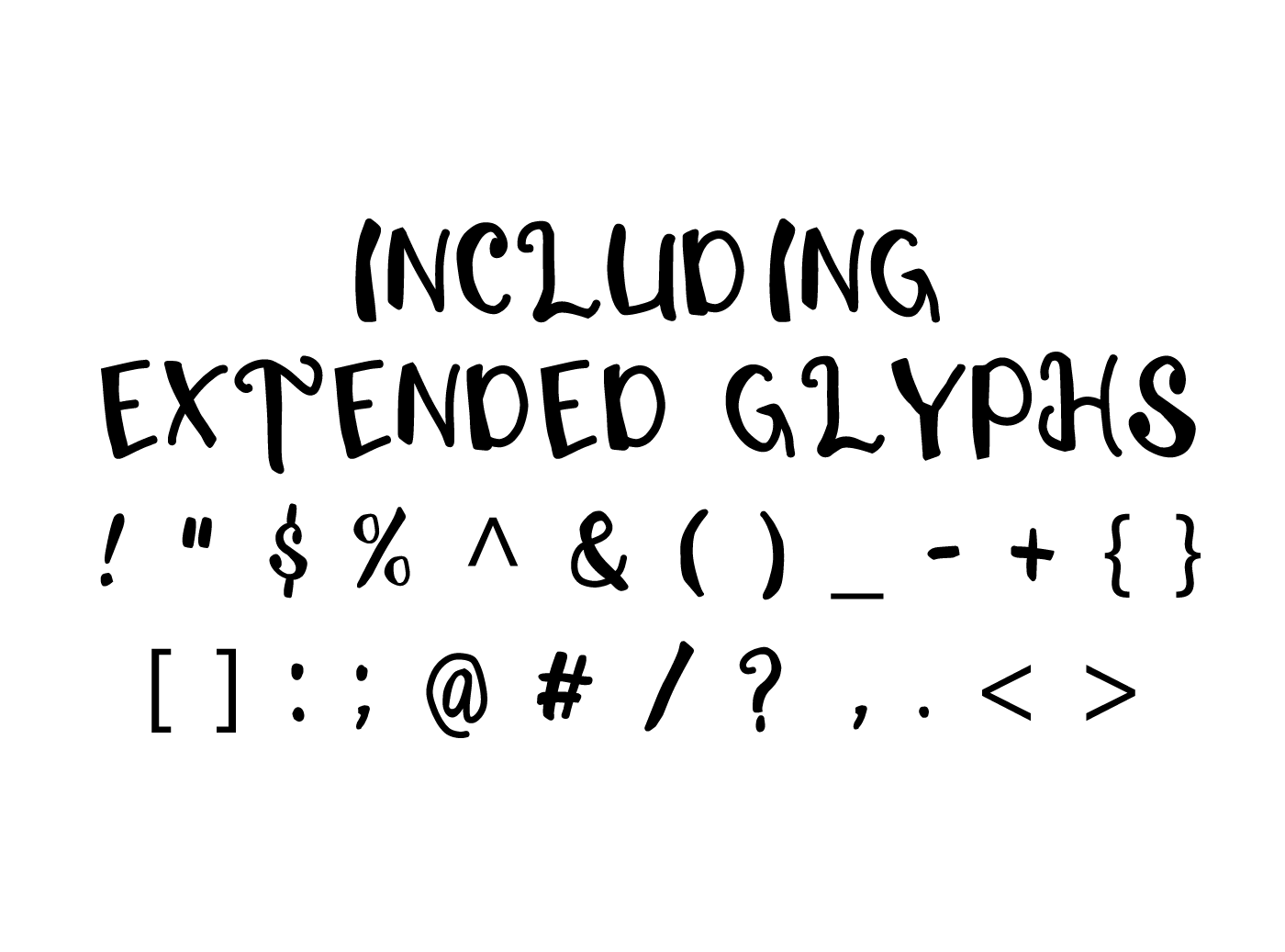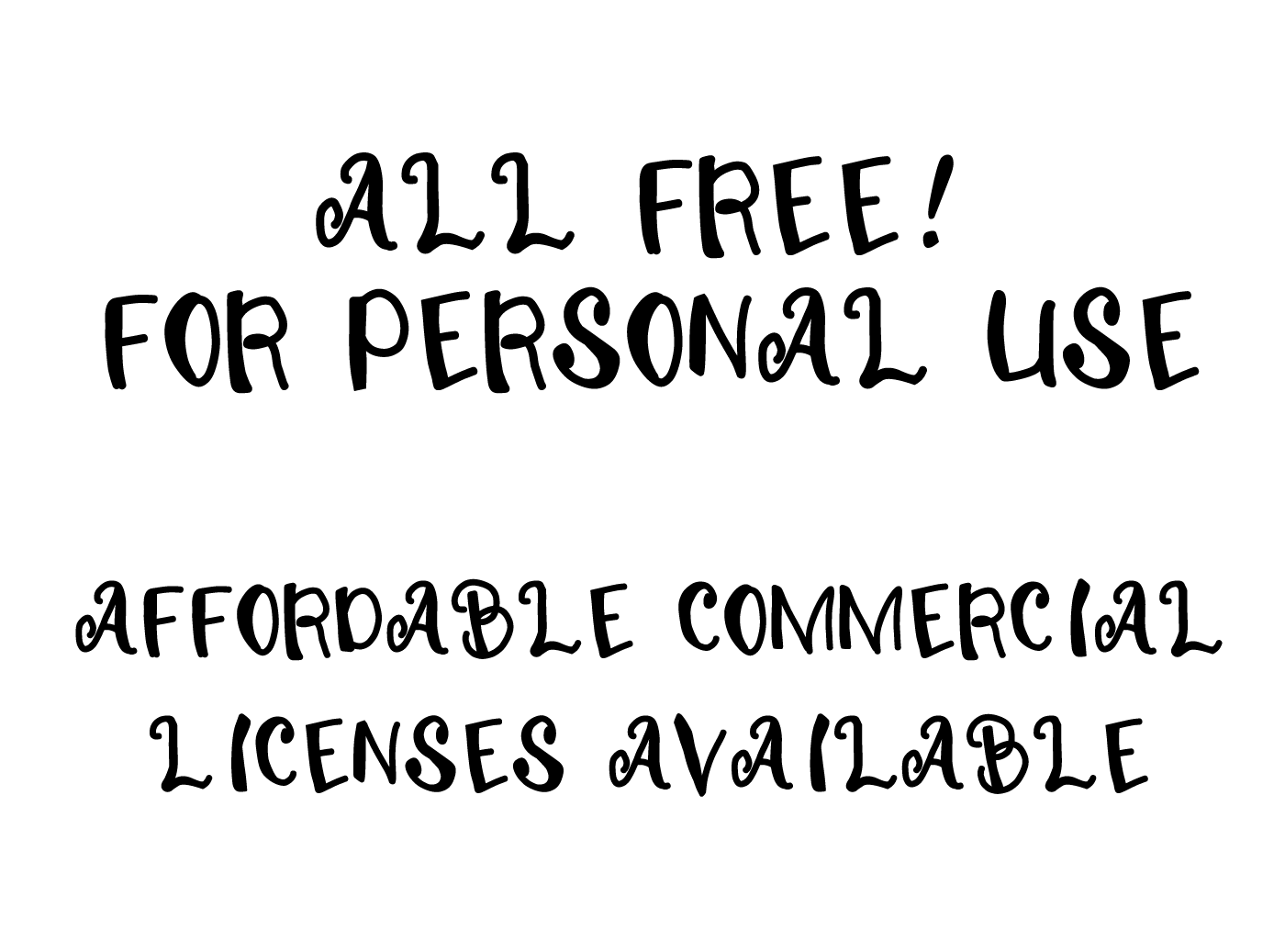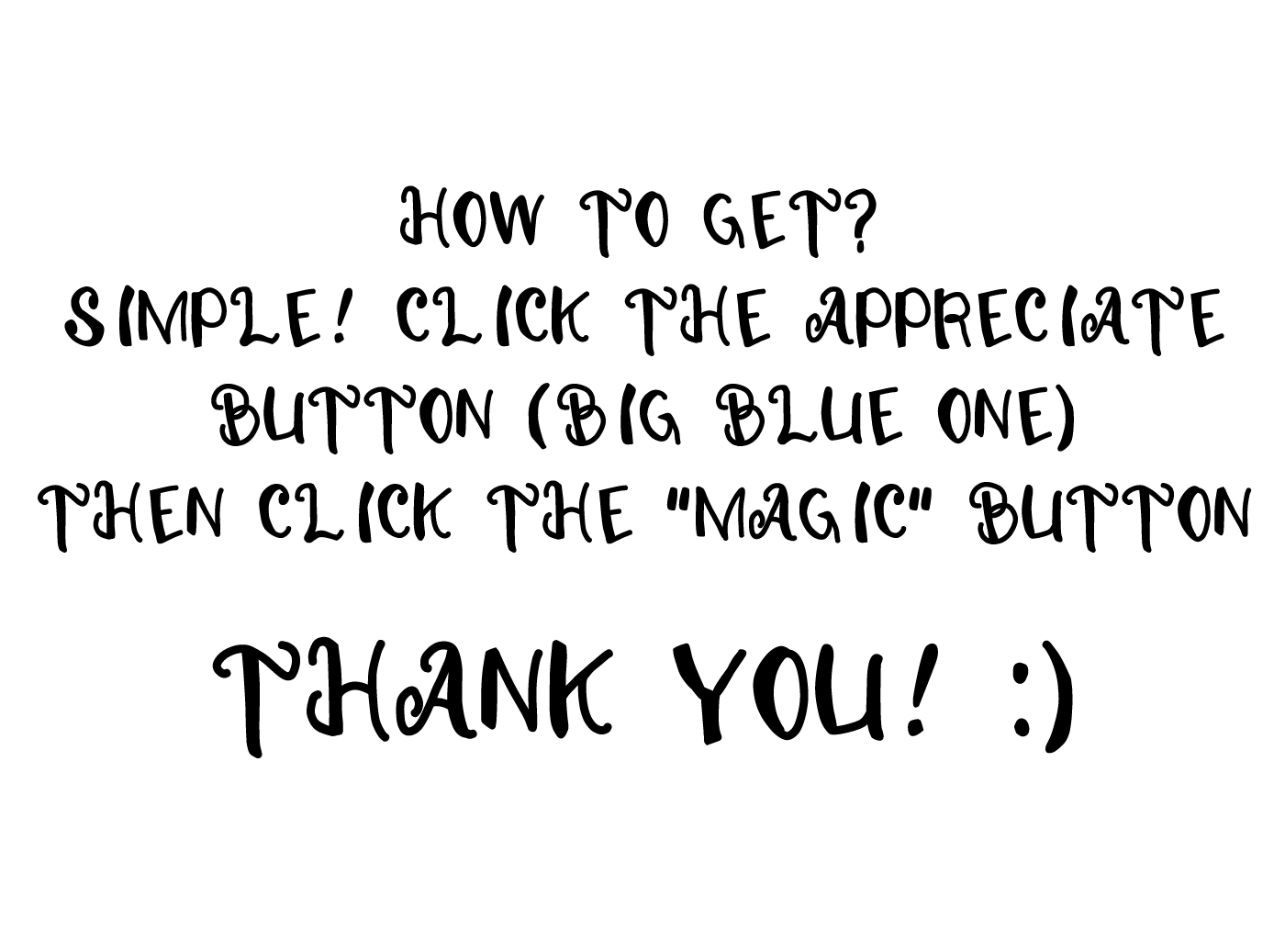
Helmut – Free Font
This is font ‘Helmut Script Font’. I am very honored to introduce this typeface on befonts. Helmut Script designed and shared by Polythene Designs. Helmut Script typeface the new very interesting. Perfect for projects brands, logos, product packaging, branding, clothing, scrap booking, posters, invitations, greeting cards, news, blogs, everything including personal charm.